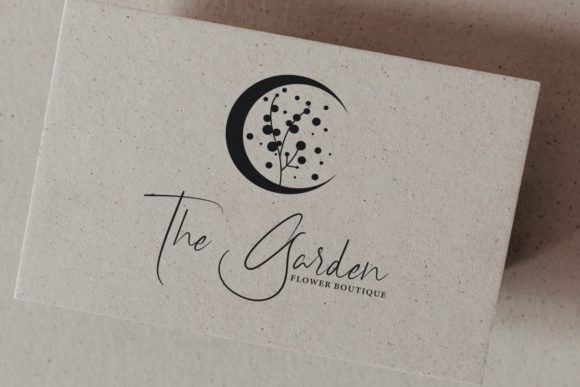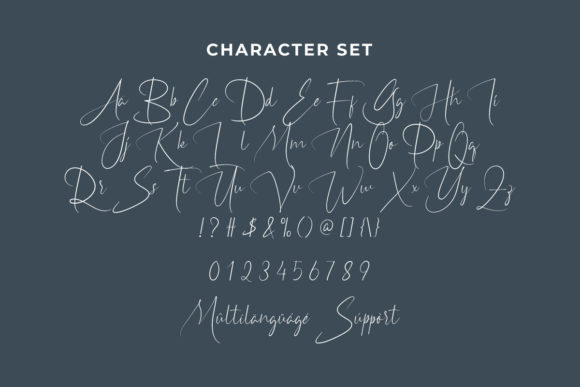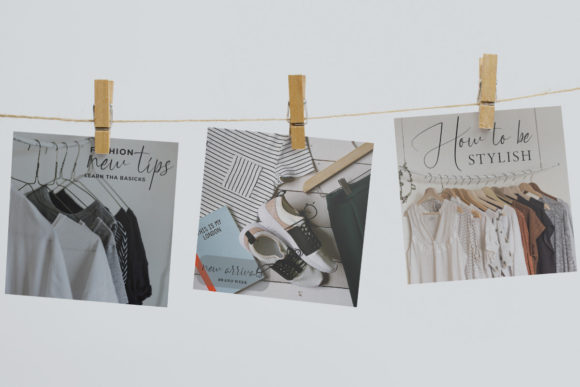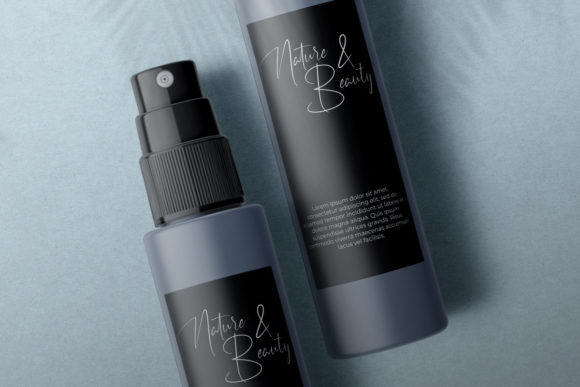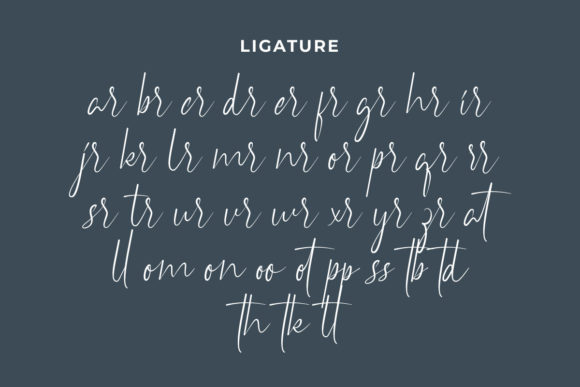
Happy Moon Font
About Happy Moon Font
Happy Moon is a thin and elegant script font. This versatility will appeal to a wide range of crafty ideas, from letterheads and titles, to stationery.